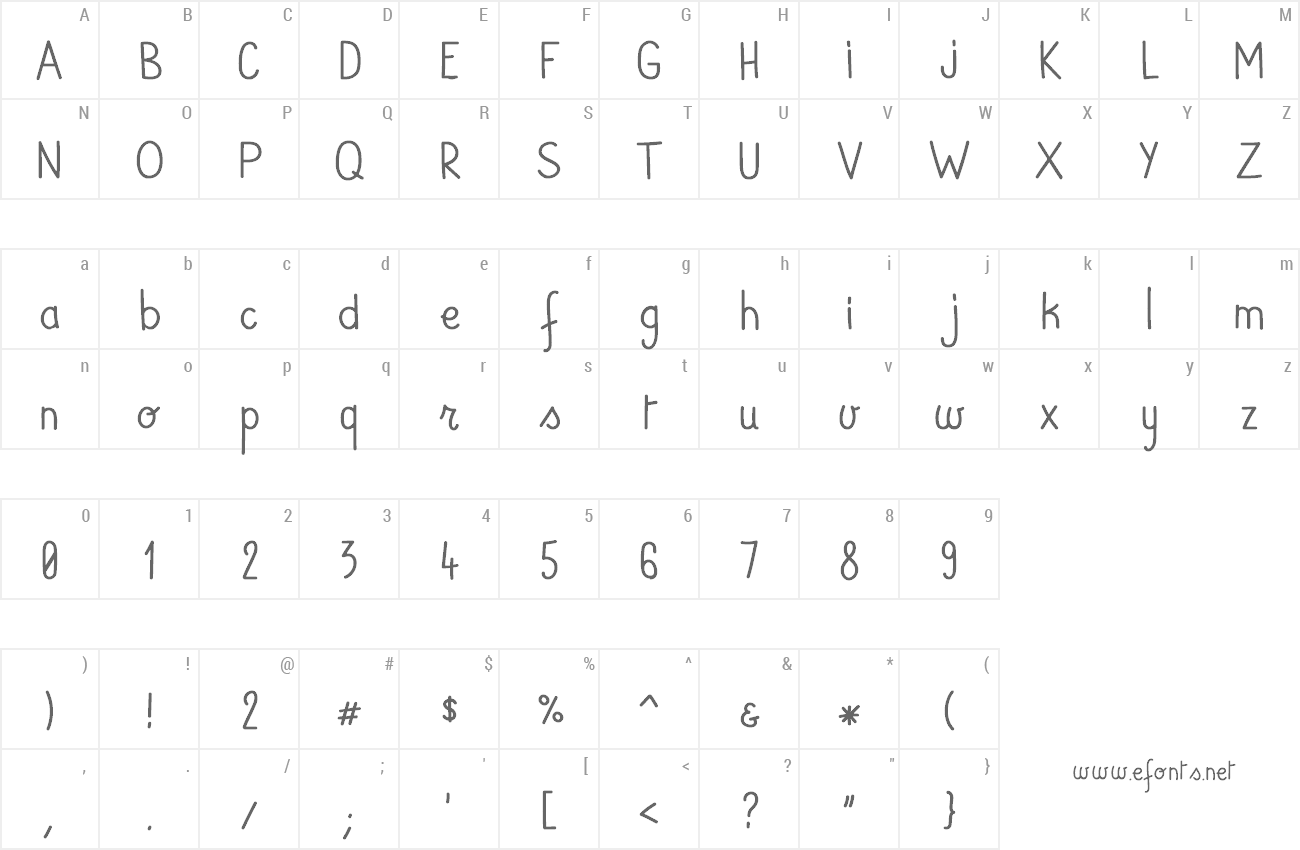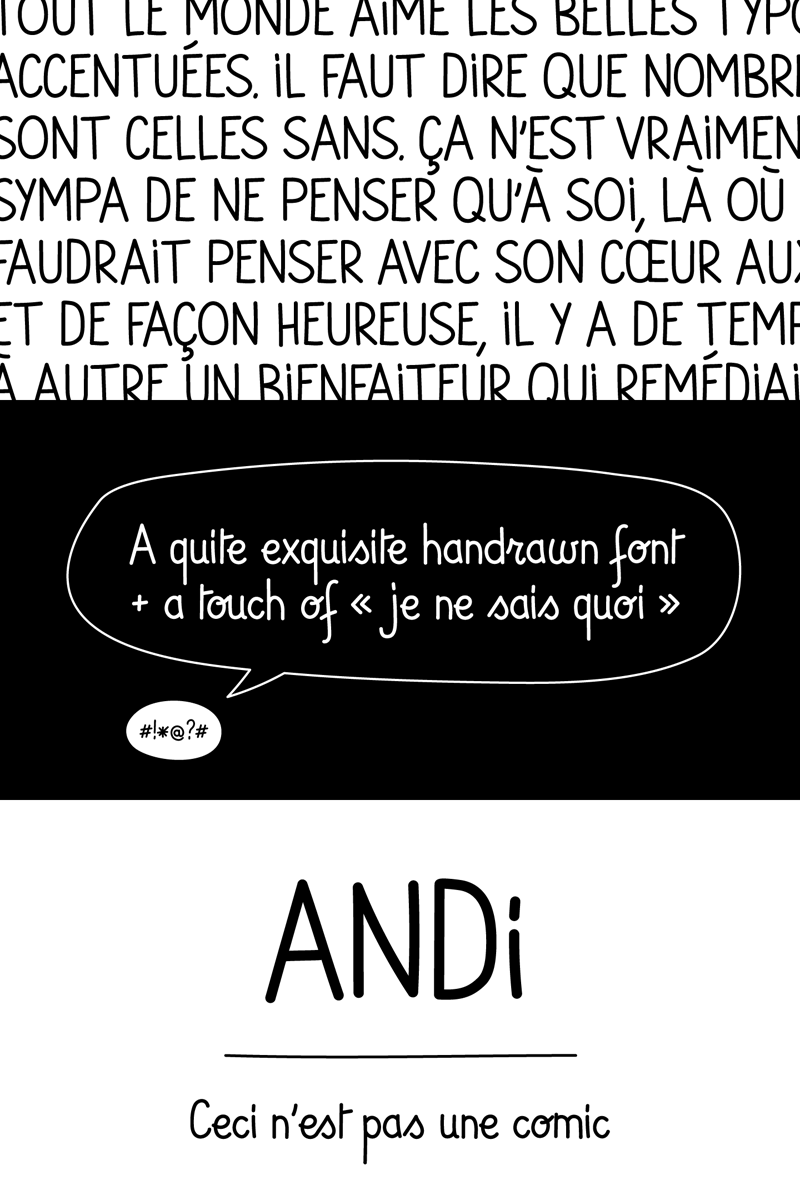
Preview and download ANDi Font. Created by BC in Script Handwritten styles with Free for personal use license.
ANDi is a hand-drawn typography with a touch of « je ne sais quoi ». It was created with legibility in mind, It has upper and lowercase characters with accents and numbers. Poster, Display, Hand-drawn, Legible, Hand, Cool, Handwritten, Handmade, Simple, Comics, Decorative, titles, friendly, lettering, Funny, illustrative, commercial, hand lettered, modern, web This font is designed with love by BC - http://www.vnbc.fr If you want to use it in commercial purpose please purchase a license here: http://www.revolge.com/product/andi-font/ Or contact me at bc(at)vnbc.fr |